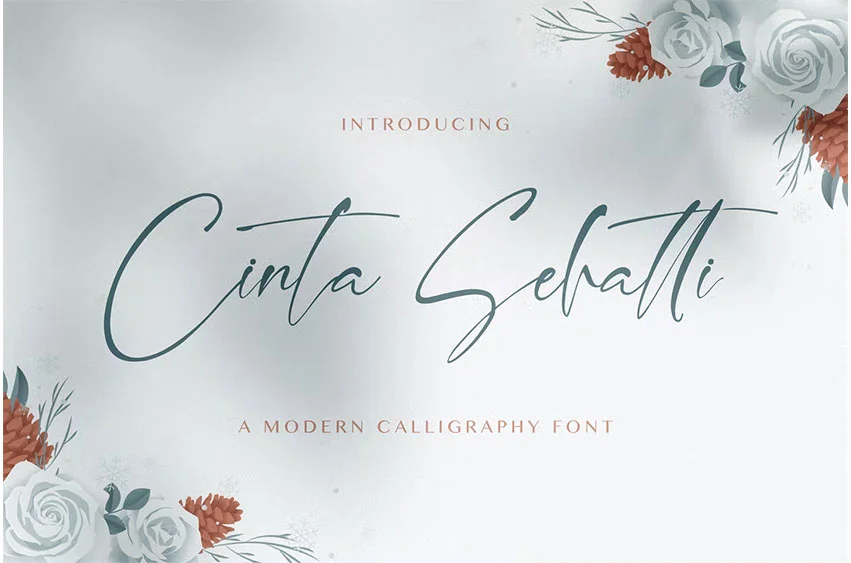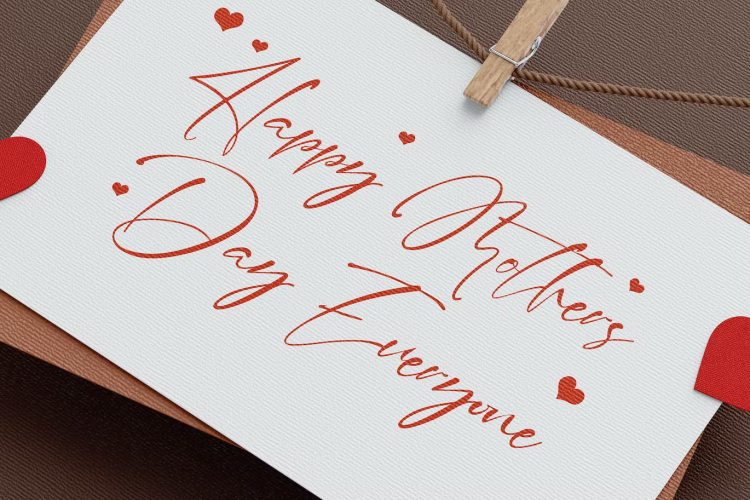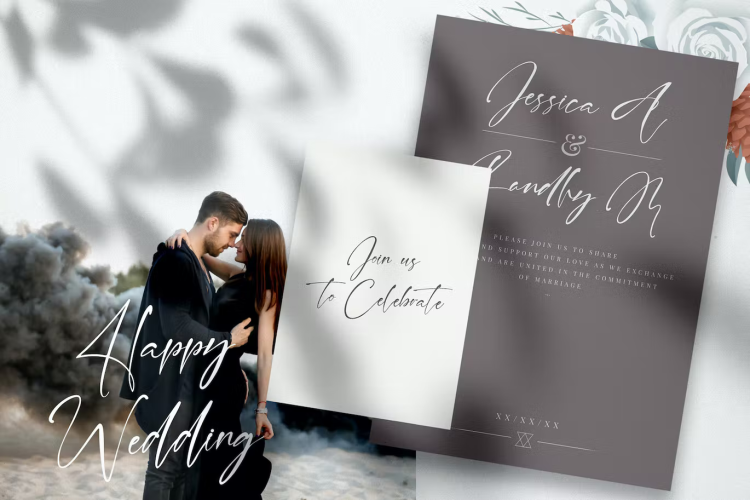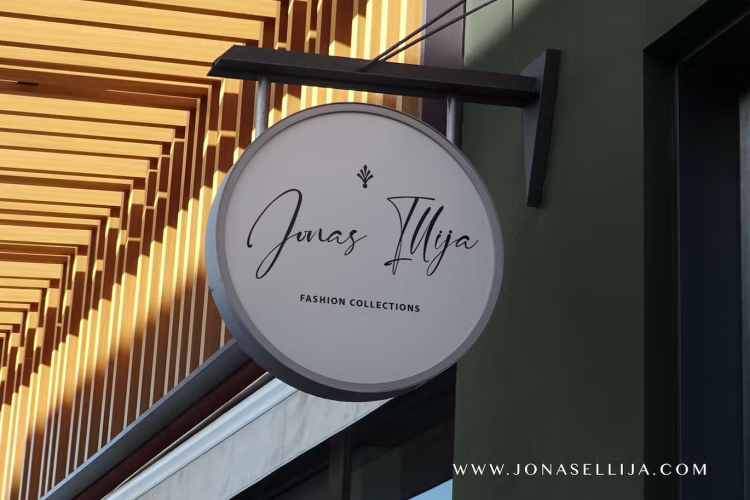
Cinta Sehatti Font
Cinta Sehatti Font is an exquisite handwritten font, masterfully designed to become a true favorite. It maintains its classy calligraphic influences while feeling contemporary and fresh. Fall in love with it and bring your projects to the highest levels!
Cinta Sehatti Font is a Script And Handwritten font that brings a professional and versatile look to your projects. Cinta Sehatti Font is an exquisite handwritten font, masterfully designed to become a true favorite.